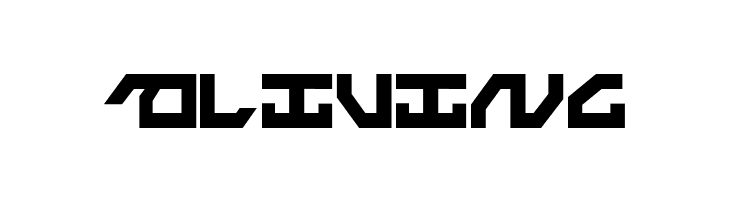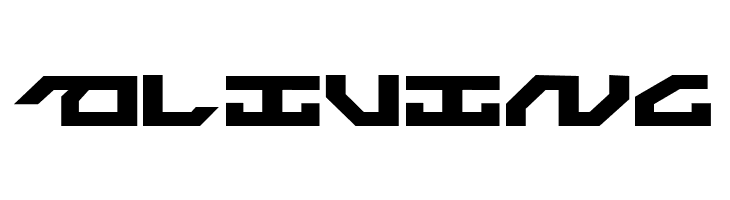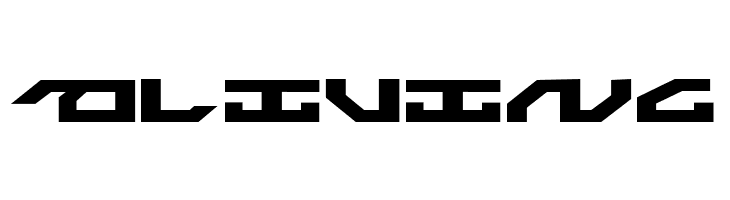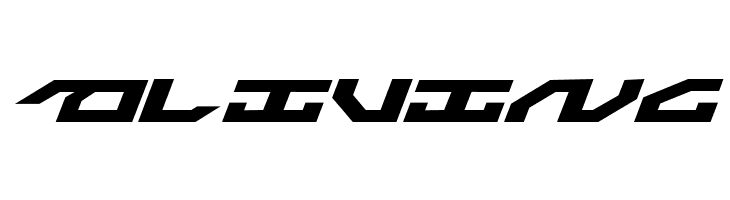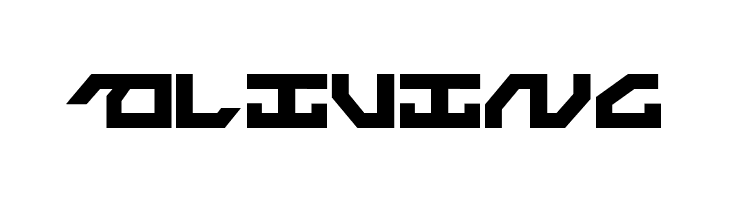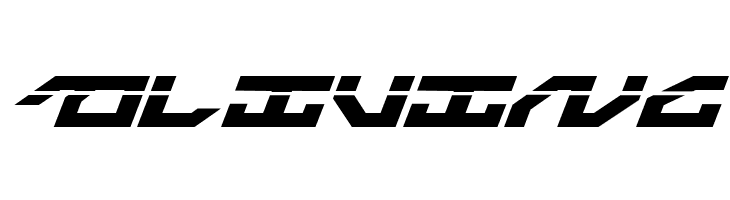
KellysNoteFont Font
A bold, angular font with a futuristic and geometric design.
A bold, futuristic font with sharp angles and geometric shapes.
A futuristic, angular font with bold lines and geometric shapes.
A futuristic, angular font with sharp edges and geometric shapes.
A bold, futuristic font with sharp, angular shapes.
A bold, futuristic font with sharp angles and an italicized style.
A futuristic, angular italic font with a bold, high-tech design.